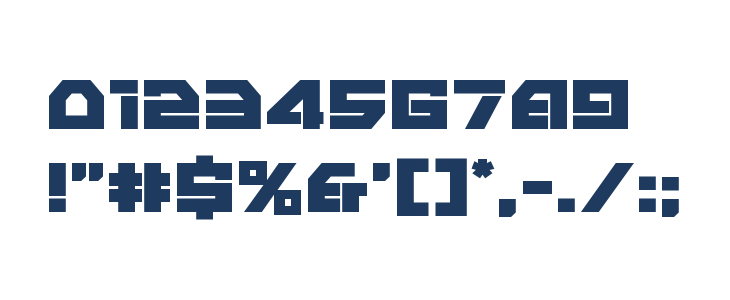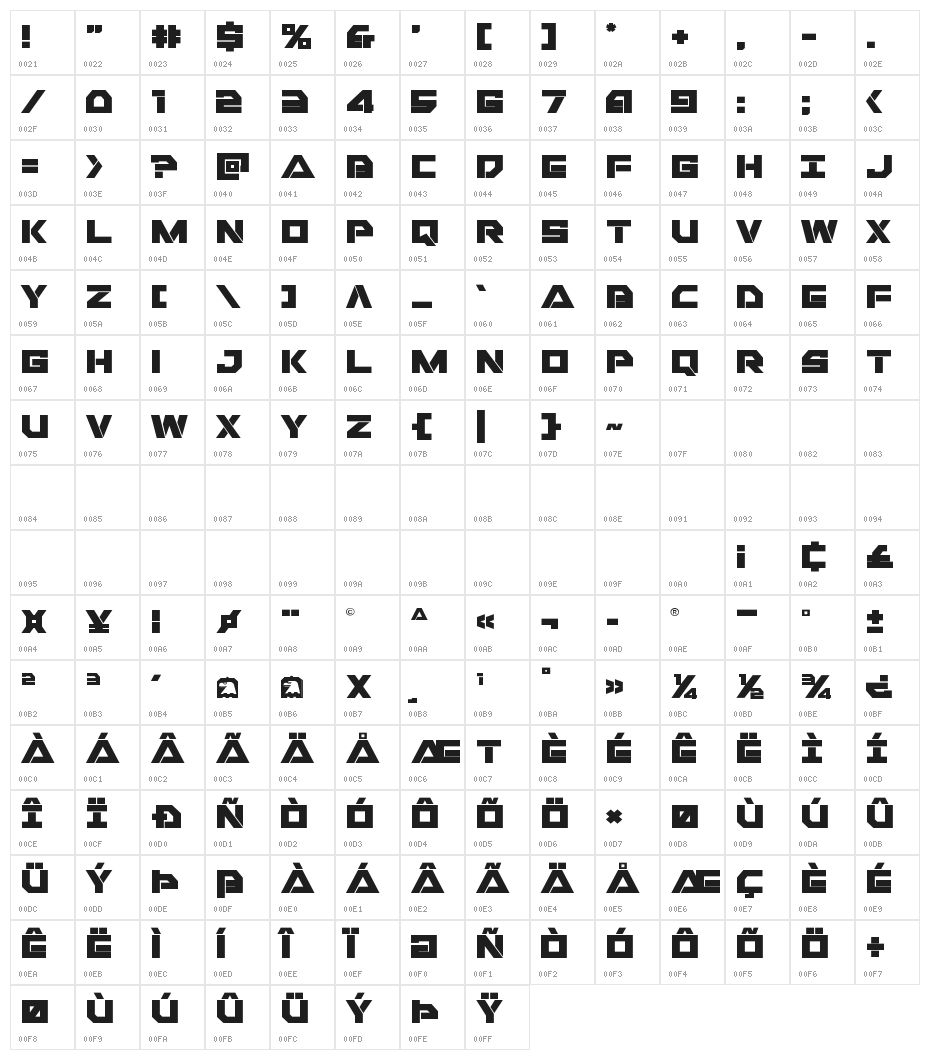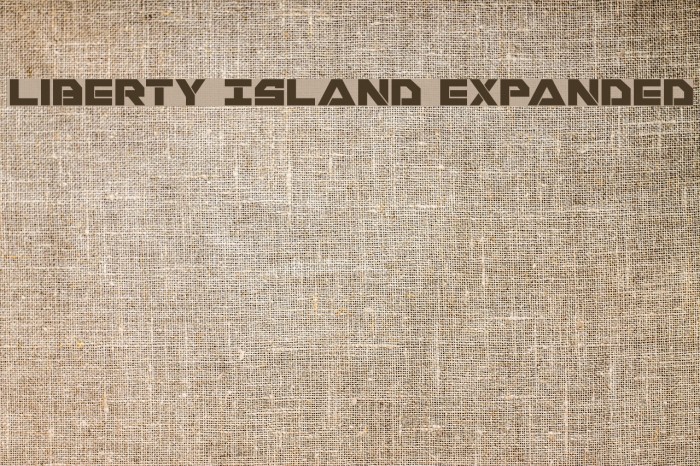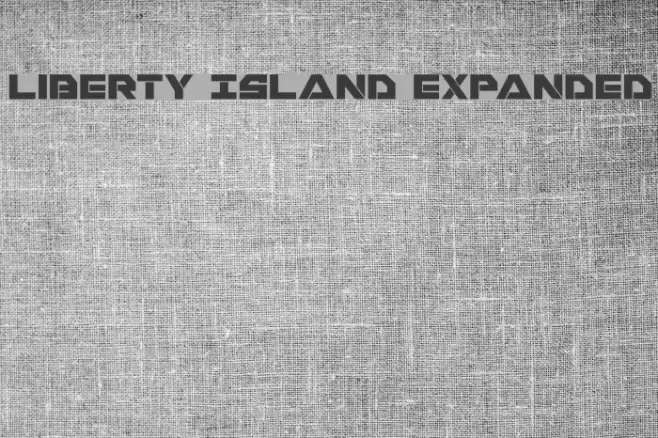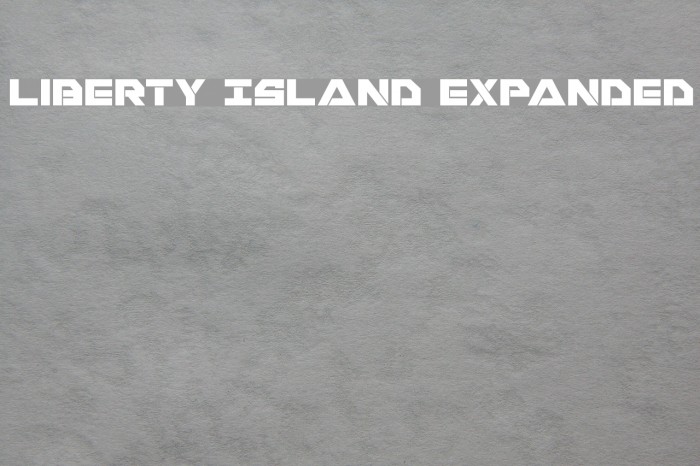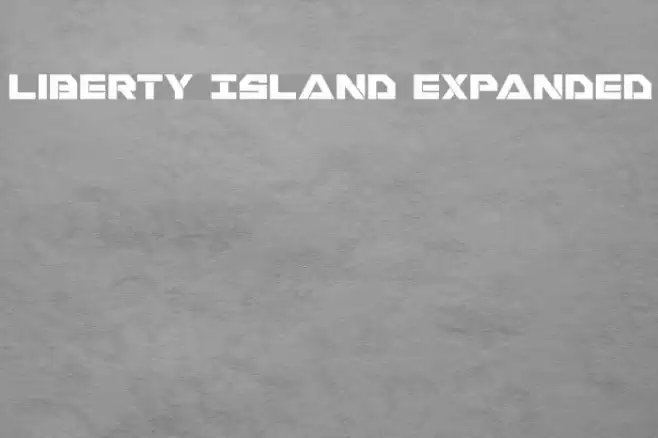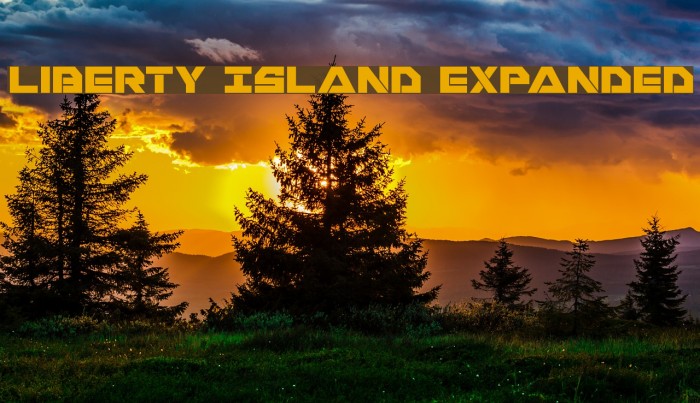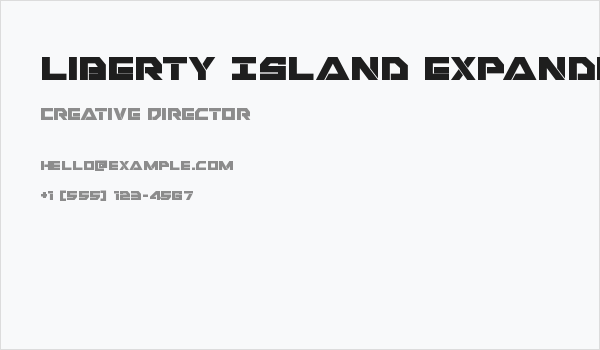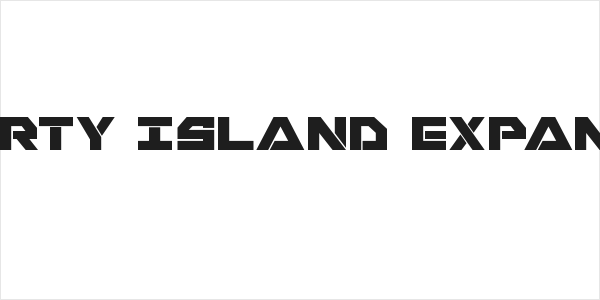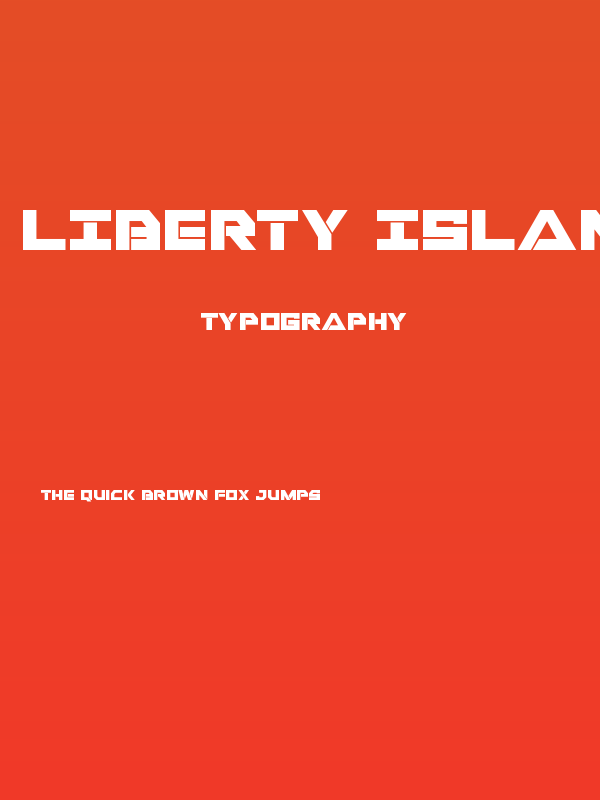
Liberty Island Expanded Font
Liberty Island Expanded Description
This font features a bold and geometric design with a distinctly futuristic and industrial feel. The characters are constructed with sharp angles and straight lines, giving them a blocky and robust appearance. The uppercase letters are particularly striking, with a uniform height and width that creates a sense of cohesion and strength. The numbers and special characters maintain this bold aesthetic, ensuring consistency across all glyphs. The font's expanded width allows for a commanding presence, making it ideal for attention-grabbing headlines or impactful logos. Its unique style is both modern and slightly retro, reminiscent of digital or sci-fi themes.
| Proposed Projects | Ideal for sci-fi themed designs, video game titles, tech company logos, and bold posters. |